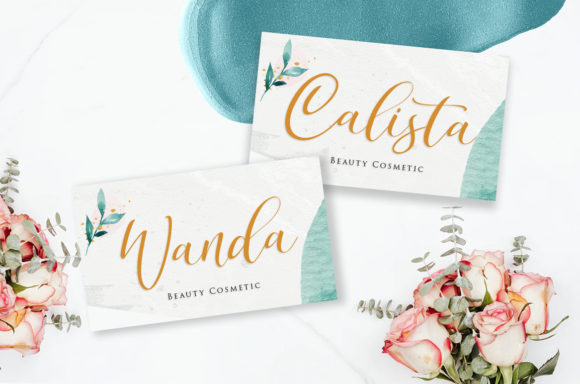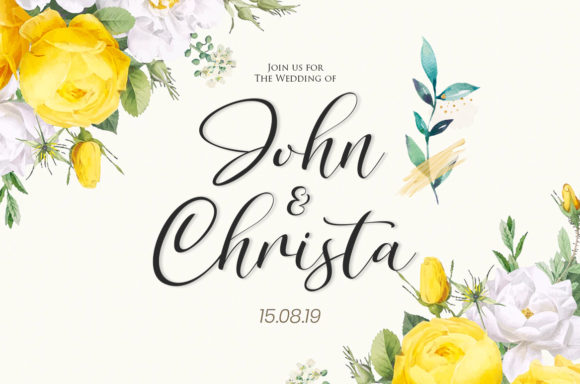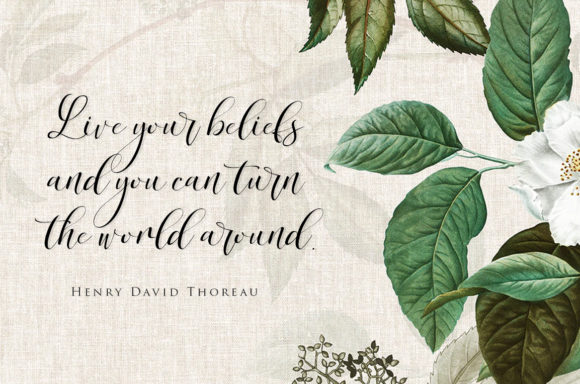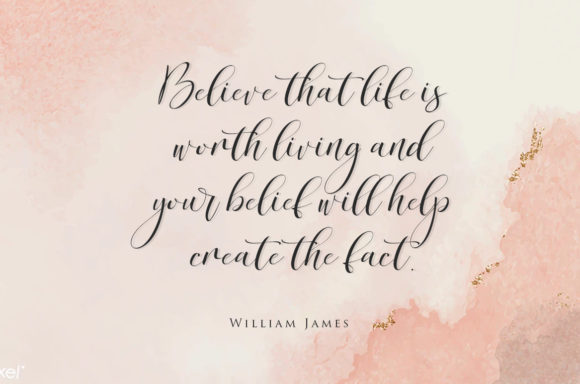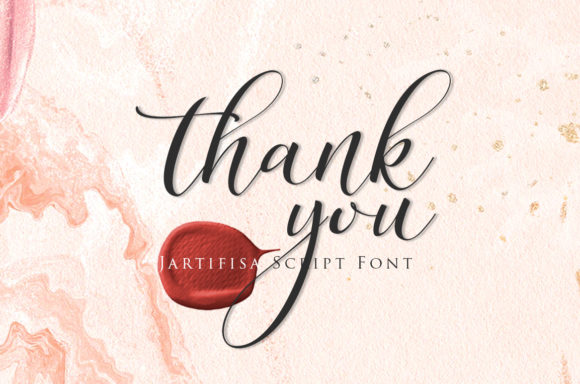
Jartifisa Font
About Jartifisa Font
Jartafisa is a strong and playful script inspired by the natural beauty of flowers. Fall in love with its organic charm, and take any spring craft to the next level!